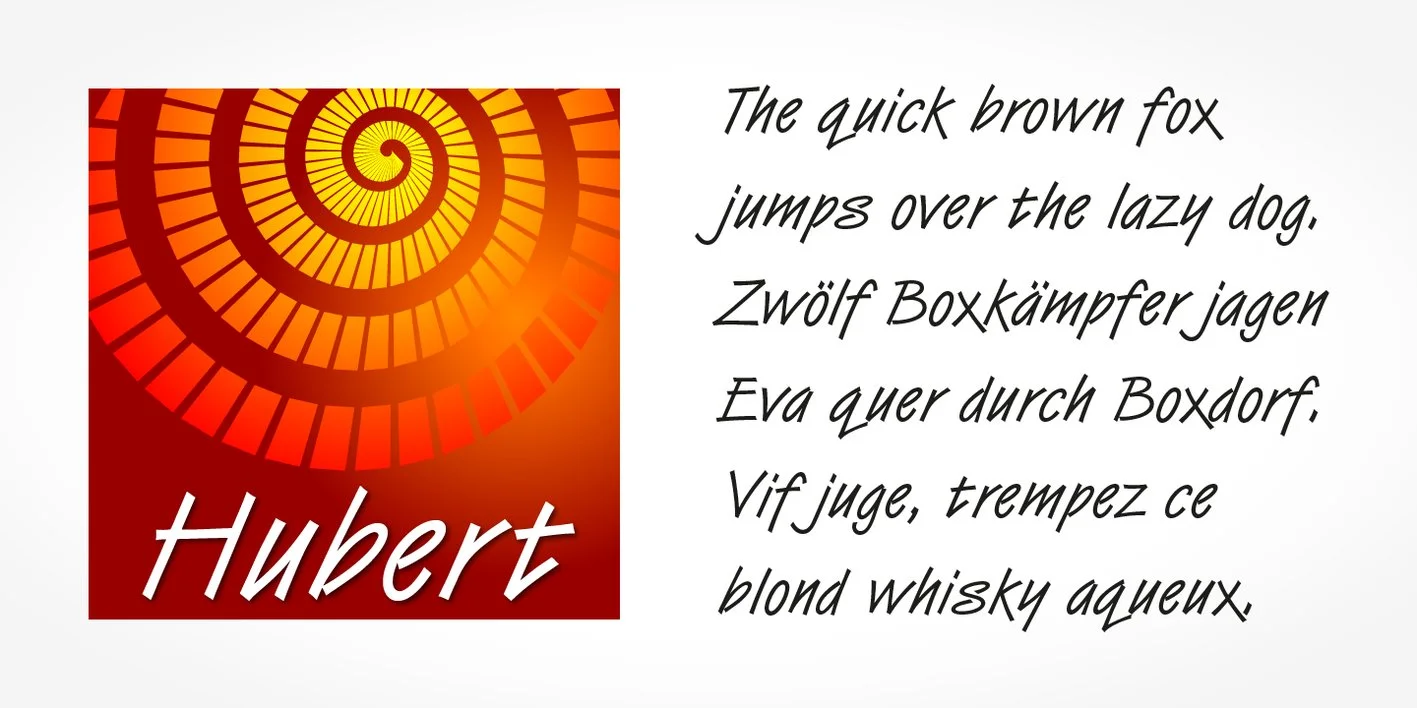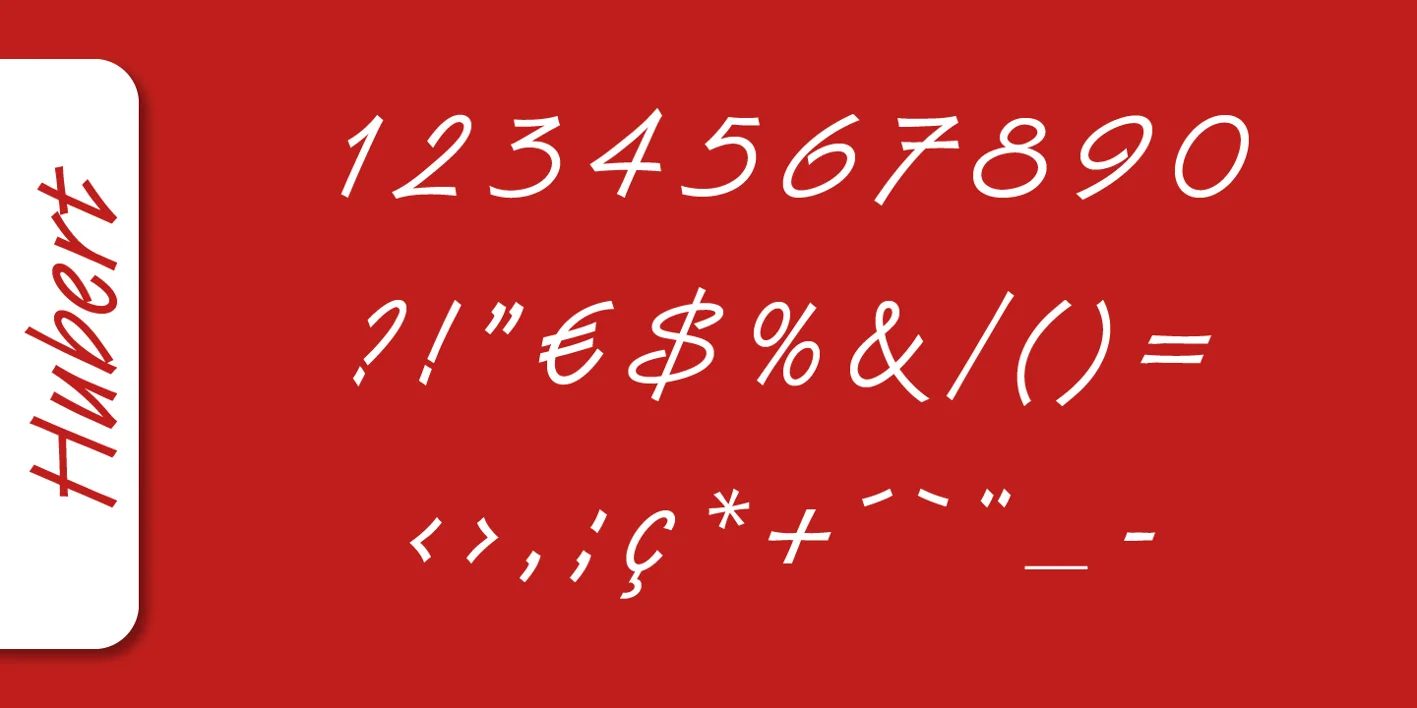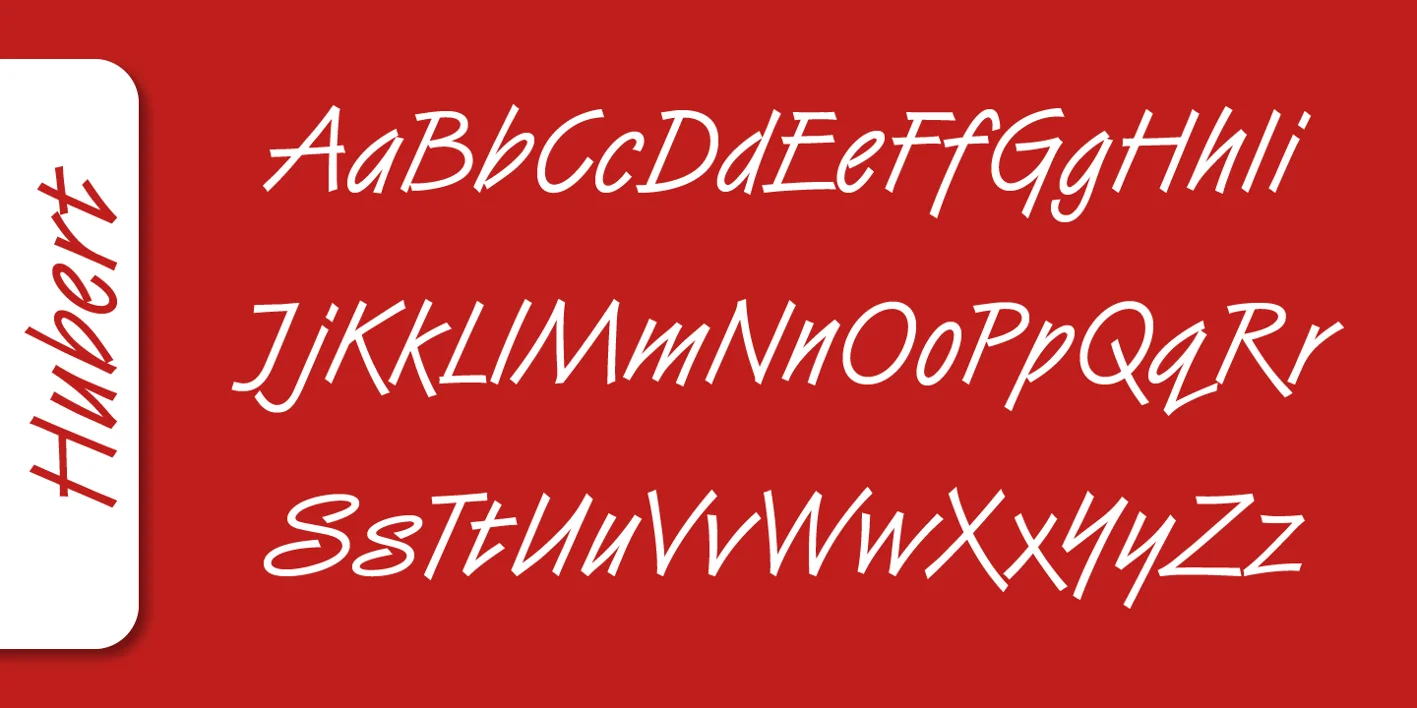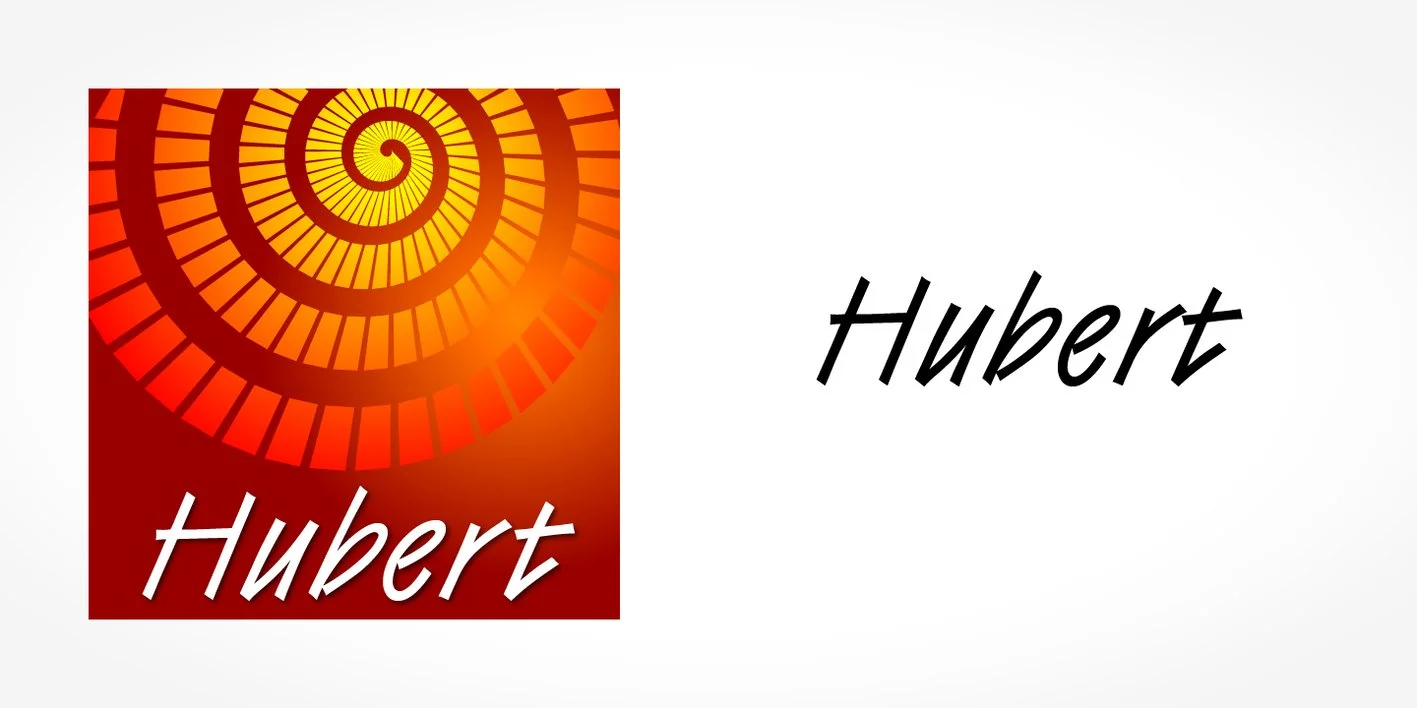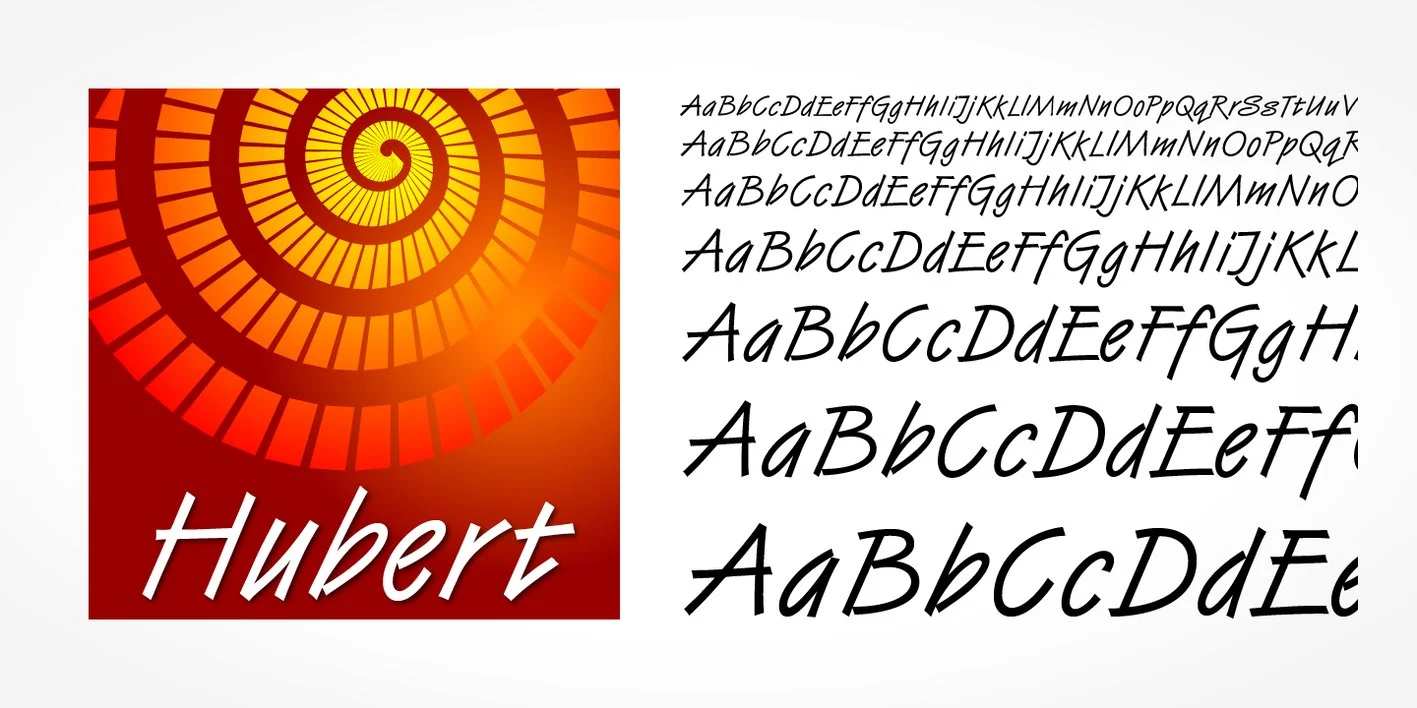
Hubert Font
Hubert offers a fresh typographic approach that balances visual appeal with exceptional legibility.
It is an excellent choice for branding projects, logo design, packaging, editorial layouts, social media graphics, and product labels.
The letterforms are drawn with consistent stroke weight, ensuring clean rendering at both small body sizes and large display settings.